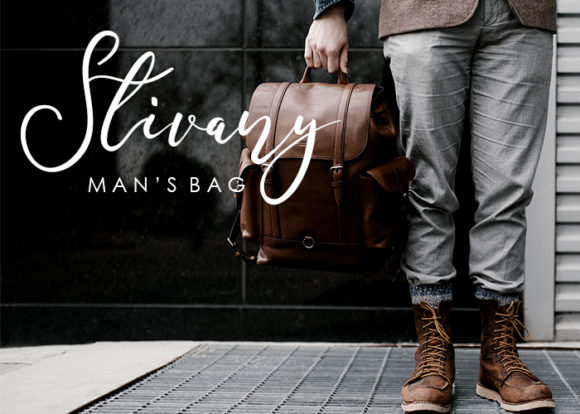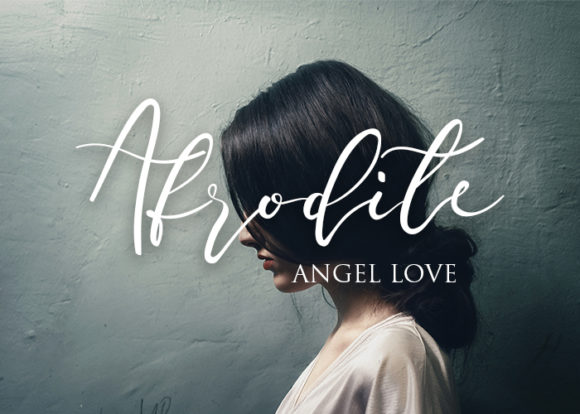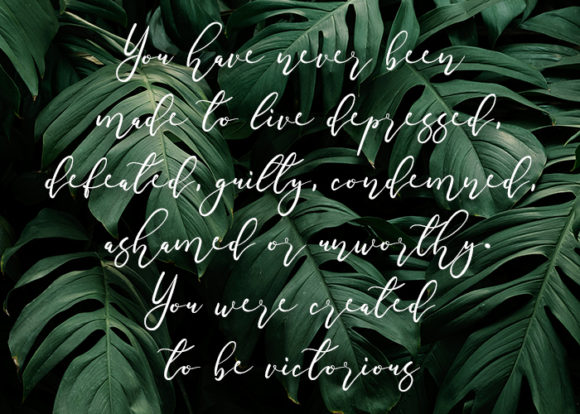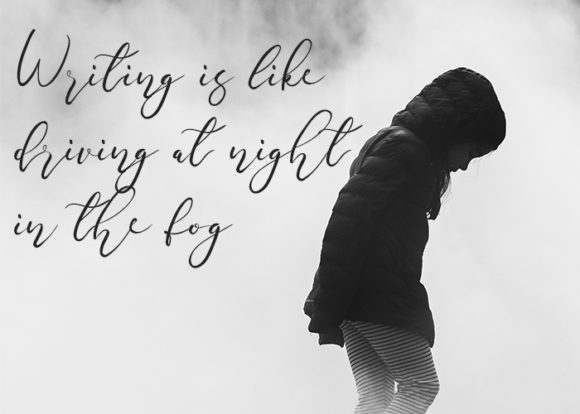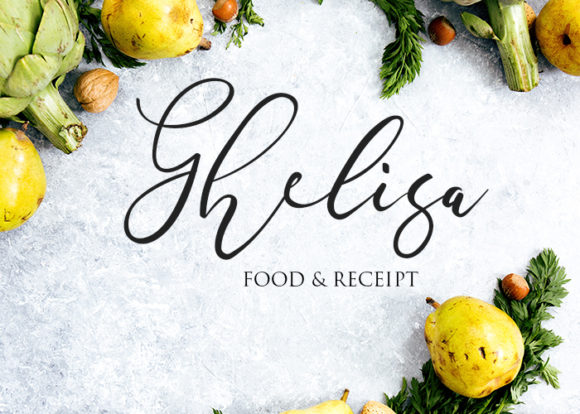
Introduction to Honabite Font
Have you ever found yourself in a design crisis, staring at a blank canvas, searching for that perfect font to elevate your creative project? For many designers, this is a familiar feeling. But what if you could add a touch of elegance and sophistication to your designs with just one click?
Enter the Honabite Font, a beautiful handwritten font that is sure to captivate your audience. With its unique style and elegant movements, this font is the perfect addition to any design resource. Whether you’re working on a branding project, a logo, or even a social media post, the Honabite Font is a valuable asset that can take your designs to the next level.
Key Features of Honabite Font
- Unique, hand-crafted typography with a transparent background, perfect for adding a personal touch to designs.
- Designed to be versatile and easy to use, making it a great addition to any design resource collection.
- Features a unique, bold style that adds a touch of sophistication to any creative project.
Honest Review: Honabite Font
I recently stumbled upon the Honabite Font while searching for a design resource to elevate my creative project. I was pleasantly surprised to find a high-quality font that fits perfectly with my style.
Here are some aspects that work well for me:
- ✨ The design is clean and modern, with a transparent background that allows for seamless layering.
- ⚠️ The font may not be suitable for very small text sizes, as the characters can become distorted.
- ⚠️ There are limited language support options, which may be a concern for designers working on projects with non-English content.
Overall, I’m impressed with the Honabite Font. Its high quality and versatility make it a great addition to any design project. While there are some limitations, I believe the benefits far outweigh the drawbacks. If you’re looking for a reliable design resource, I’d definitely recommend giving the Honabite Font a try.
The Honabite Font is ideal for creative projects, such as logos, branding, and marketing materials. Its high-quality design and transparent background make it perfect for use in graphic design, digital art, and web design.
Yes, the Honabite Font has a transparent background, making it ideal for use in design projects where a clear background is required. This feature allows for easy integration with other design elements and backgrounds, giving you more creative control over your design.